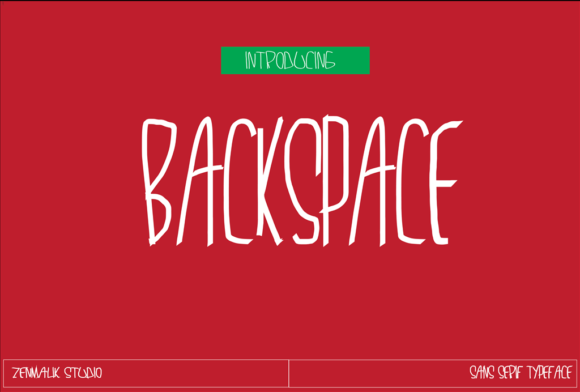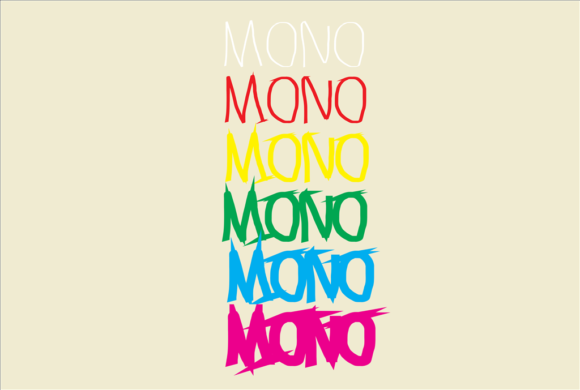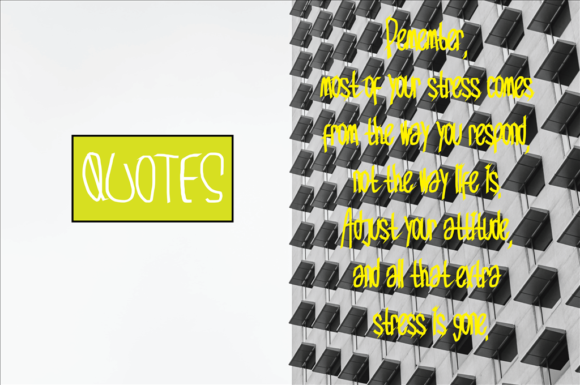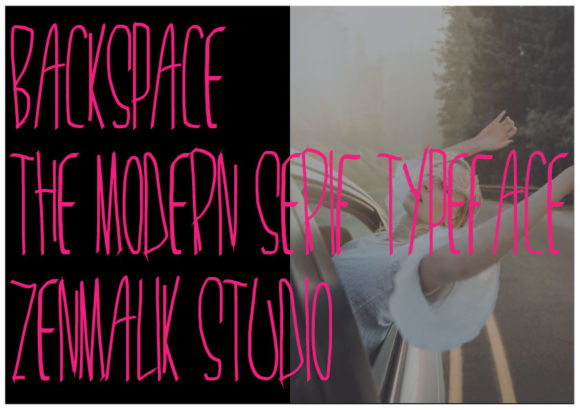
Backspace Font
About Backspace Font
Backspace is a simple and thin lettered handwritten font. It is the best choice for creating eye catching logos, branding and quotes. Every letter has a unique and beautiful touch, which will make your design feel down to earth.